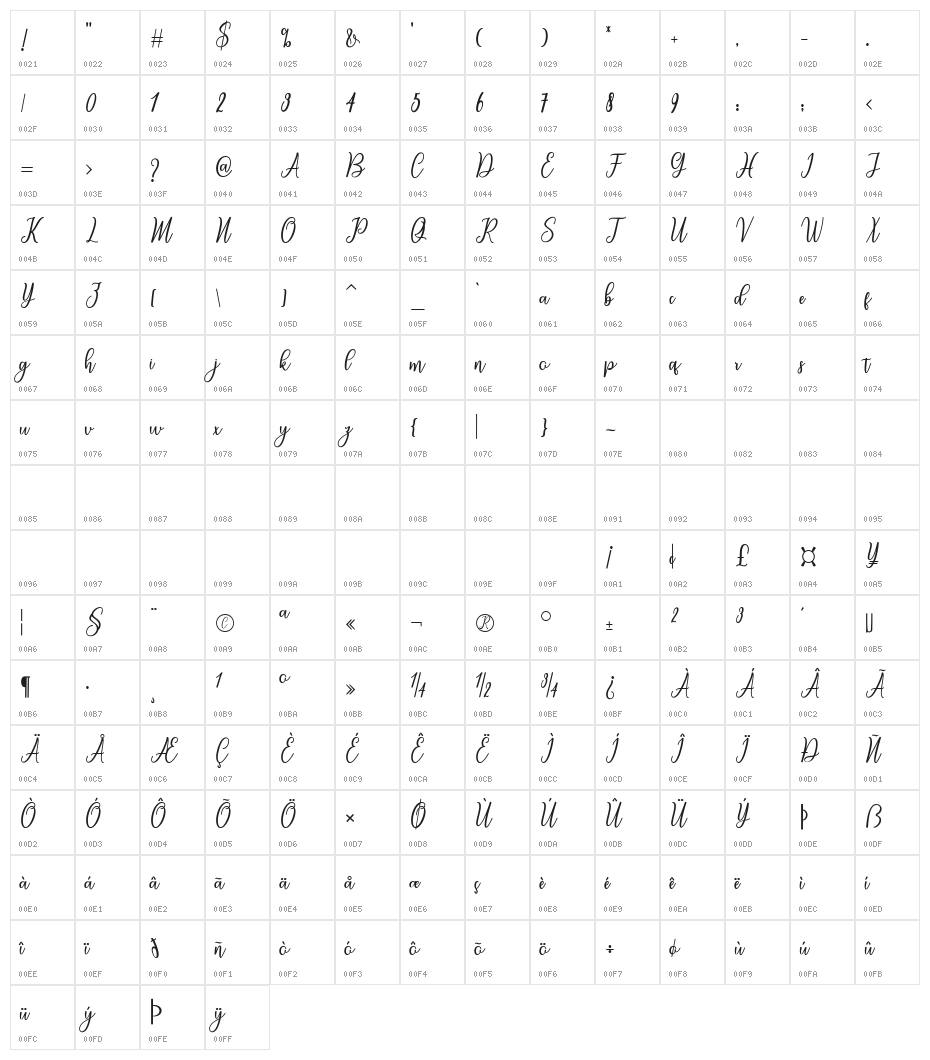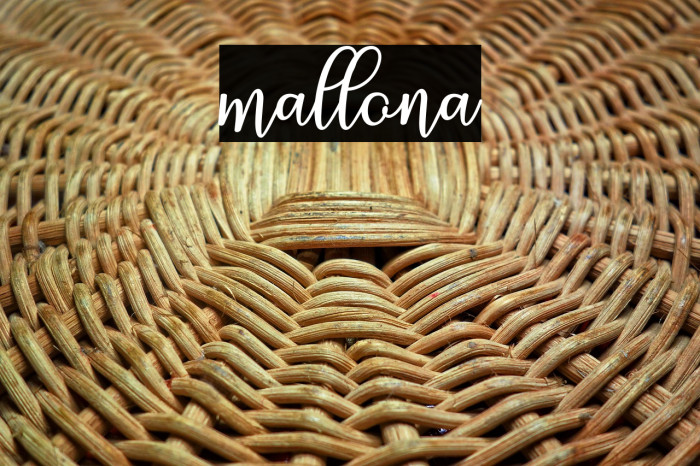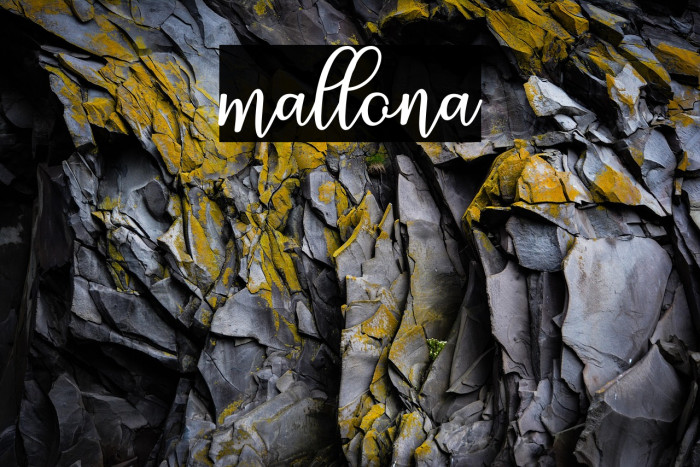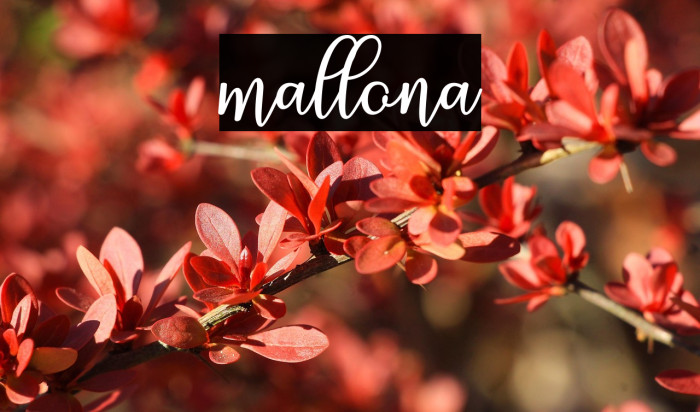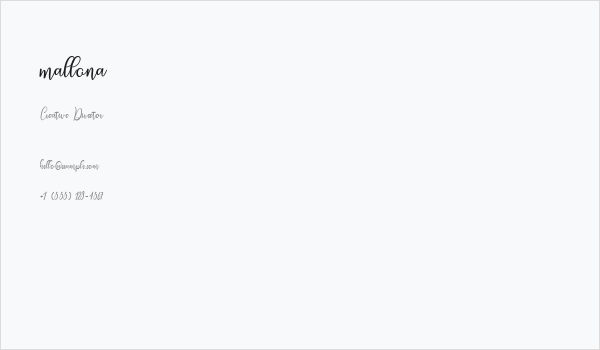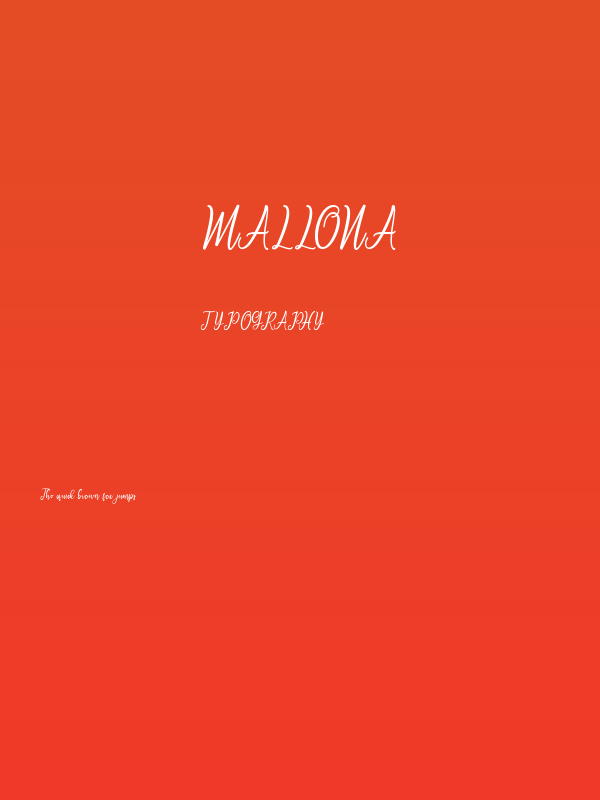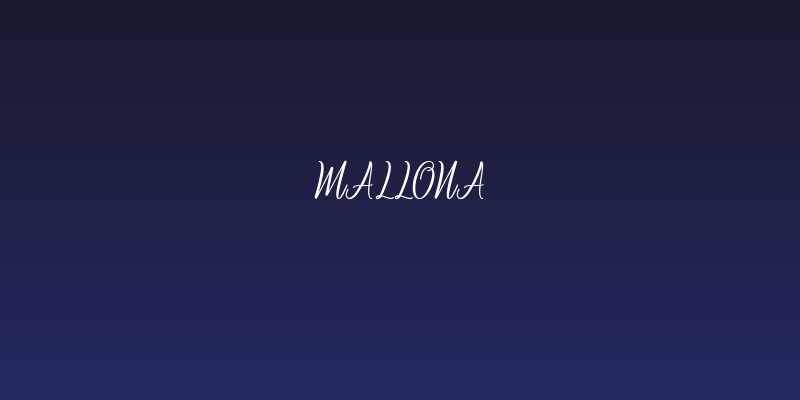
mallona Font
mallona Description
This elegant script font features a flowing, cursive style with smooth, interconnected letters that create a sense of fluidity and grace. The uppercase letters are tall and slightly slanted, with delicate loops and swirls that add a touch of sophistication. The lowercase letters maintain a consistent style, with rounded forms and gentle curves that enhance readability. Numbers and special characters are designed to match the overall aesthetic, ensuring a cohesive look across all text elements. This font exudes a sense of elegance and is perfect for projects that require a personal, handwritten touch.
| Overall Style | Elegant |
| Use Case | Logos, Invitations, Greeting Cards |
| Proposed Projects | Ideal for wedding invitations, greeting cards, branding, and elegant packaging designs. |